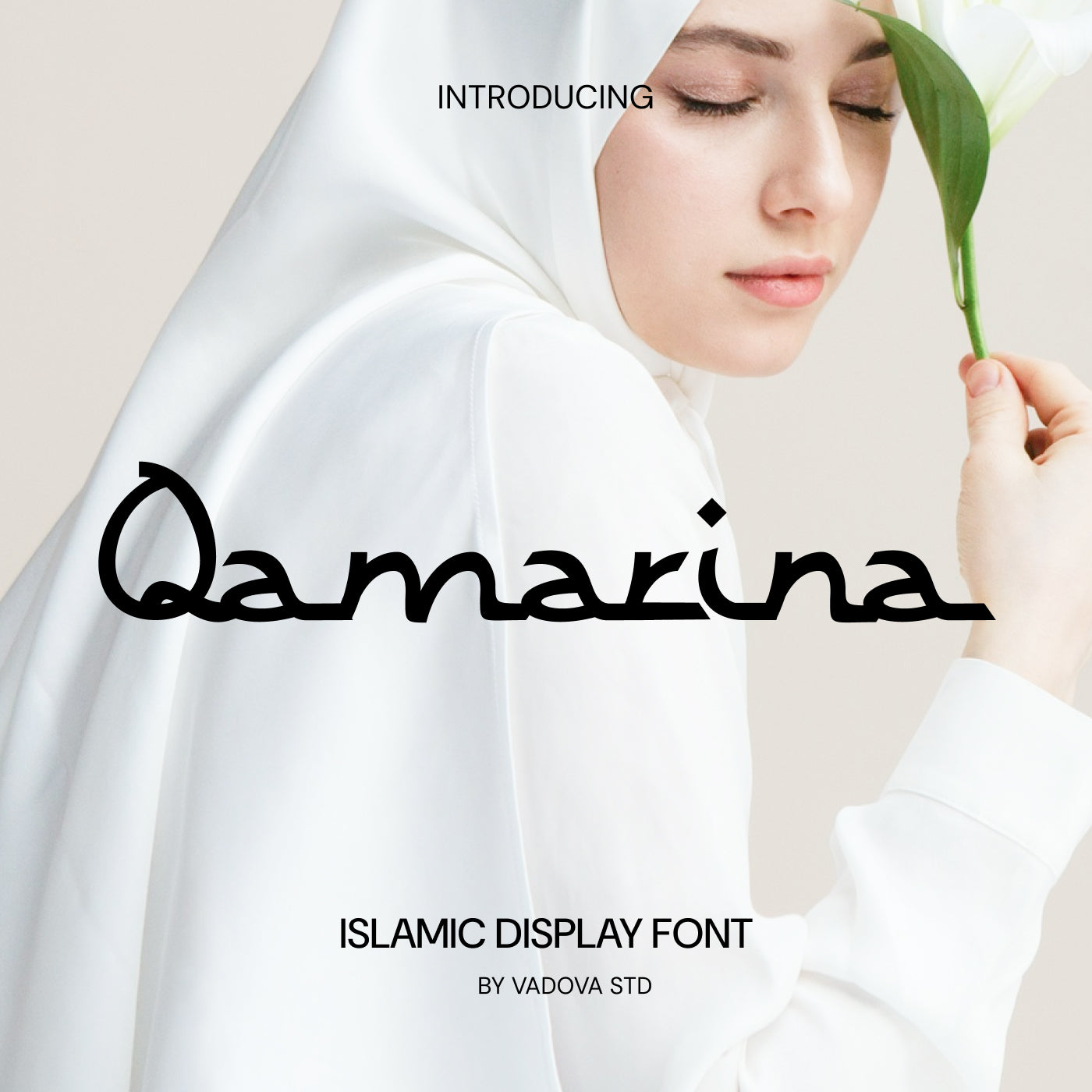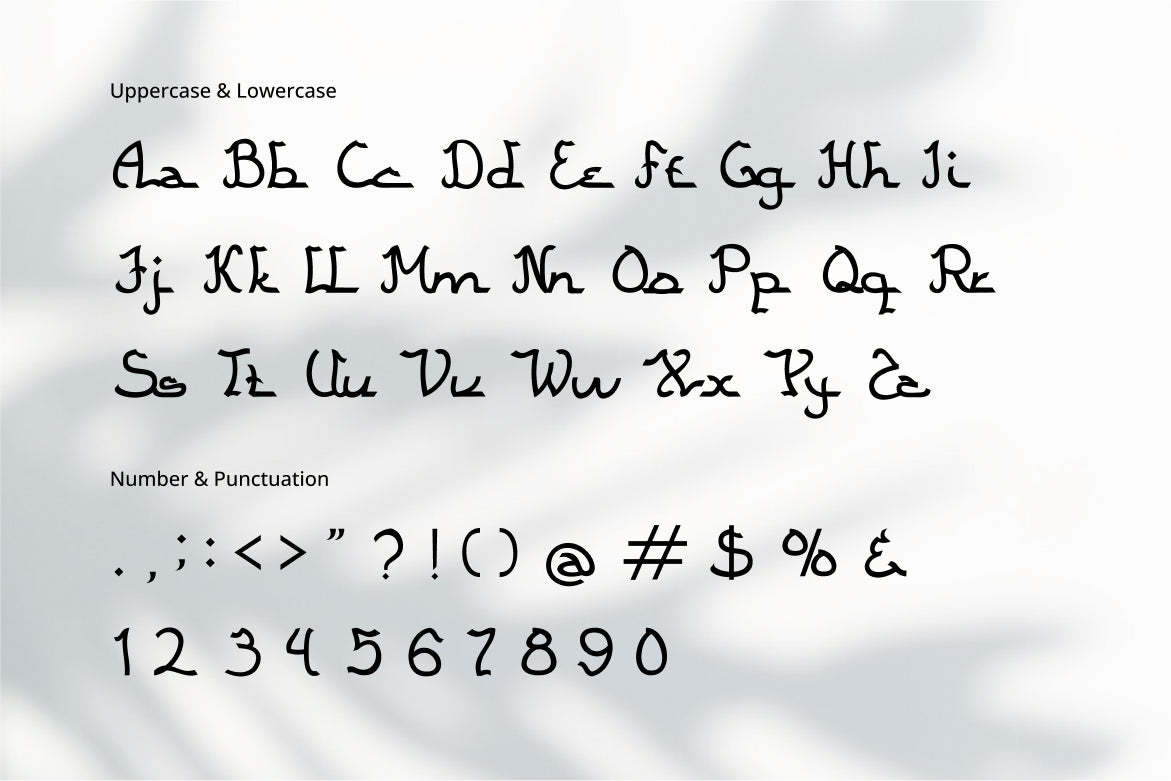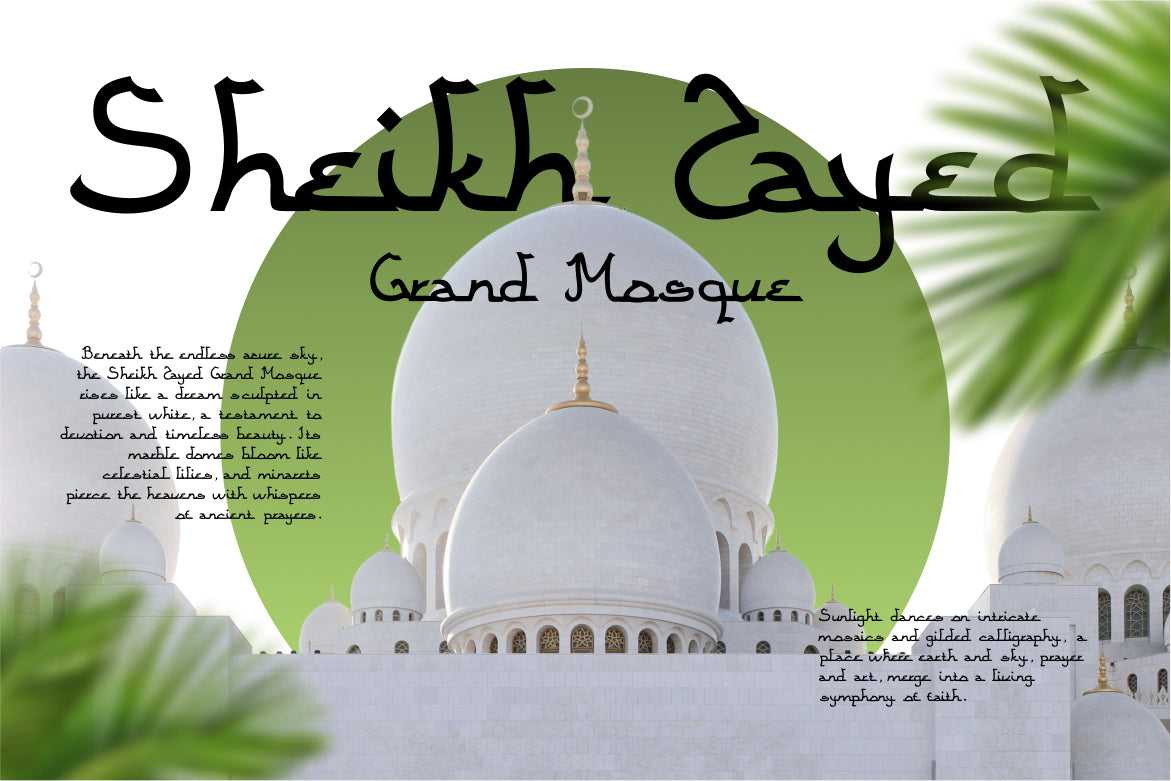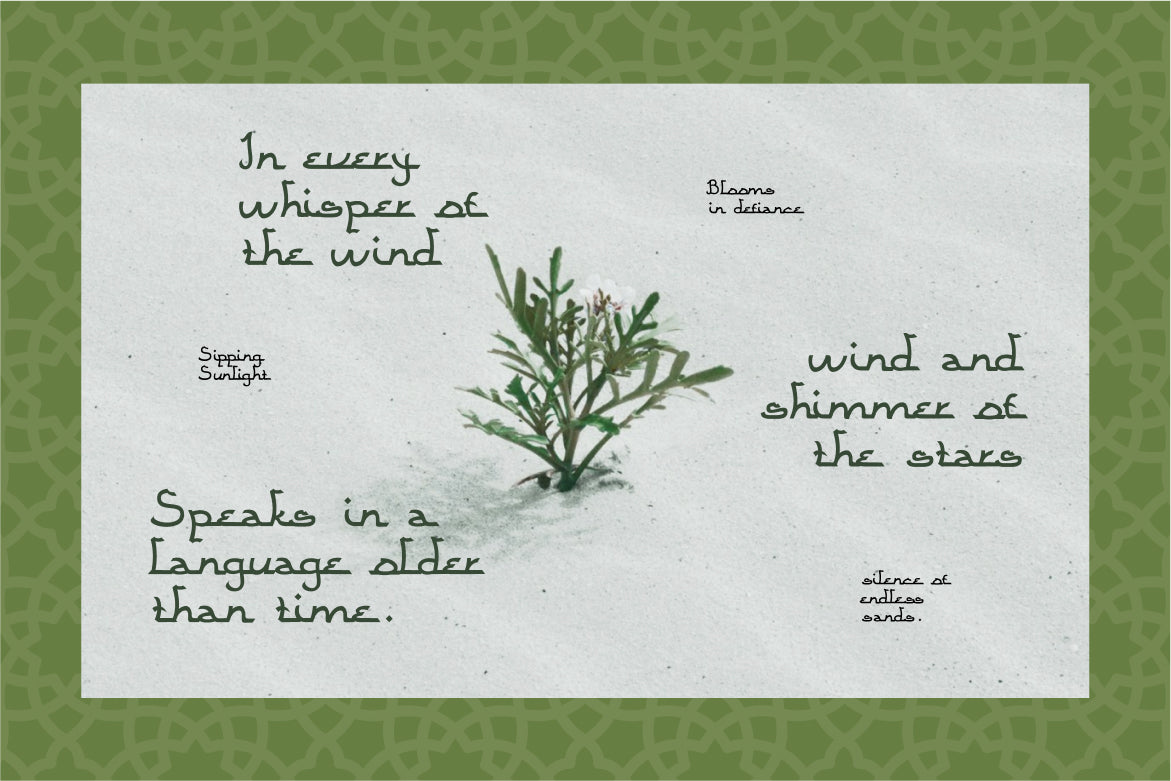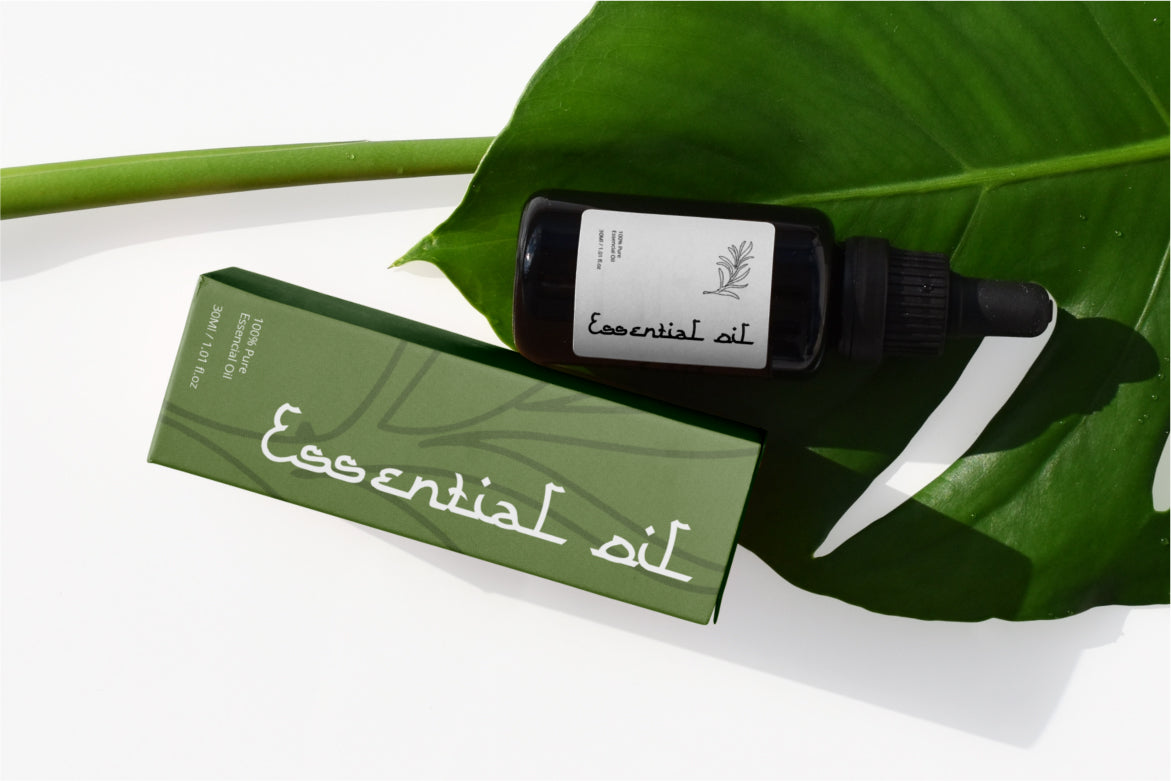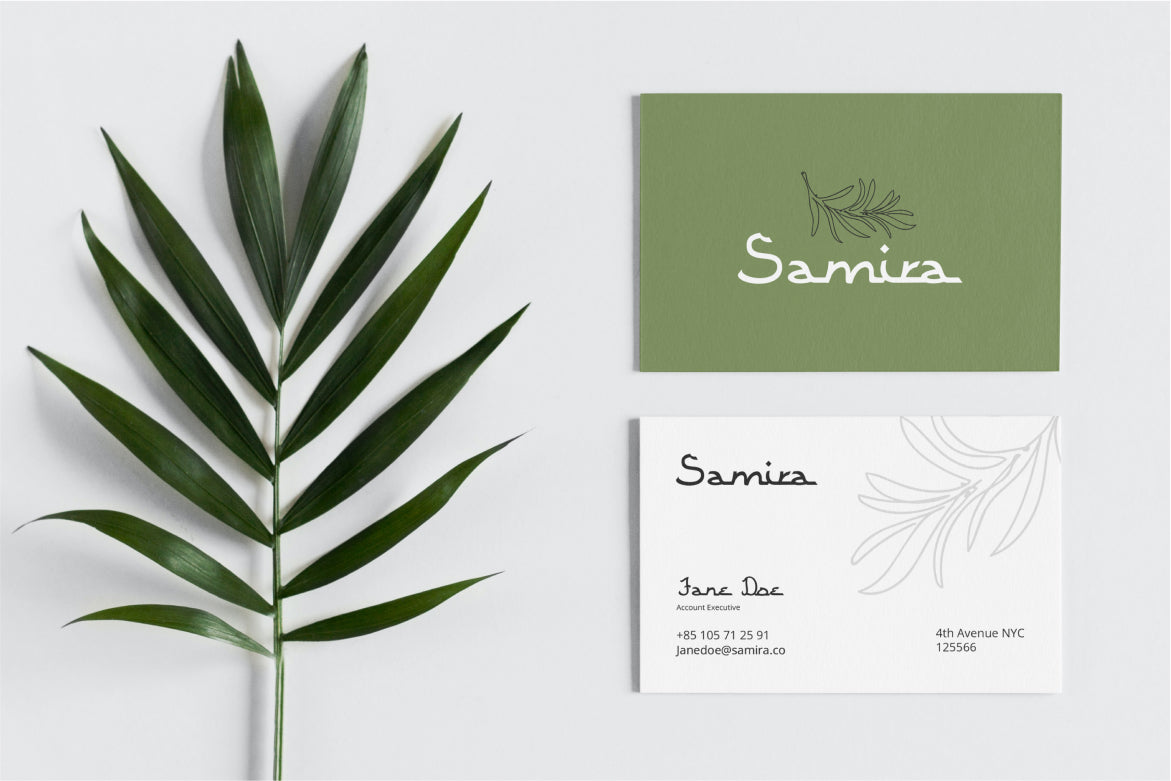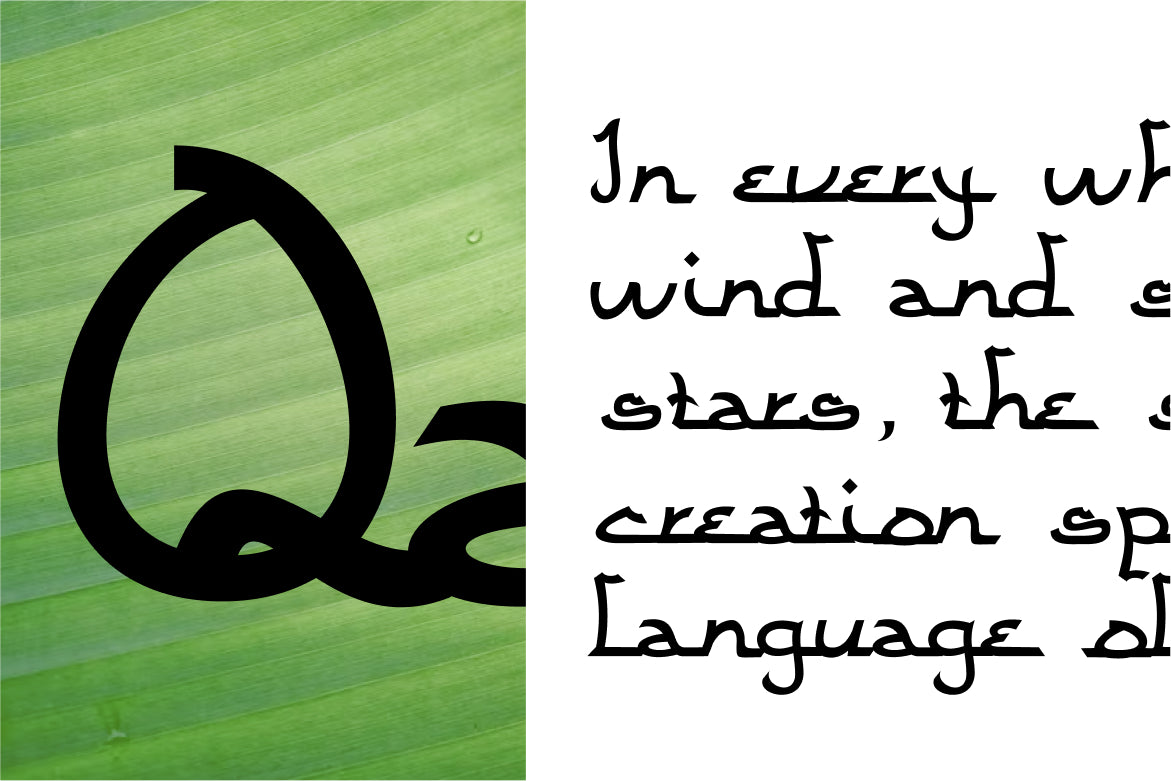
Qamarina Islamic Display Font
Qamarina Creative Script Font is a modern Islamic display font radiating a serene and sophisticated energy. Its aesthetic is clean, elegant, and subtly playful, making it ideal for designs that aim to be both contemporary and respectful of traditional influences. The font's gentle curves and flowing connections give it a distinctive character that feels handcrafted yet polished. This font is perfect for an Instagram-savvy audience, fashion magazines seeking an ethereal touch, or brands looking to convey a sense of grace and authenticity. The letterforms are characterized by their smooth, organic flow, creating a harmonious and inviting visual experience. It's a display font, meaning it truly shines when used for headlines, logos, and short bursts of text, where its unique personality can stand out.
The Qamarina Islamic Display Font is a modern script typeface featuring clean and elegant letterforms with smooth curves and flowing connections. Available in TTF, OTF, and WOFF formats, it includes uppercase and lowercase characters, numerals, and punctuation marks.